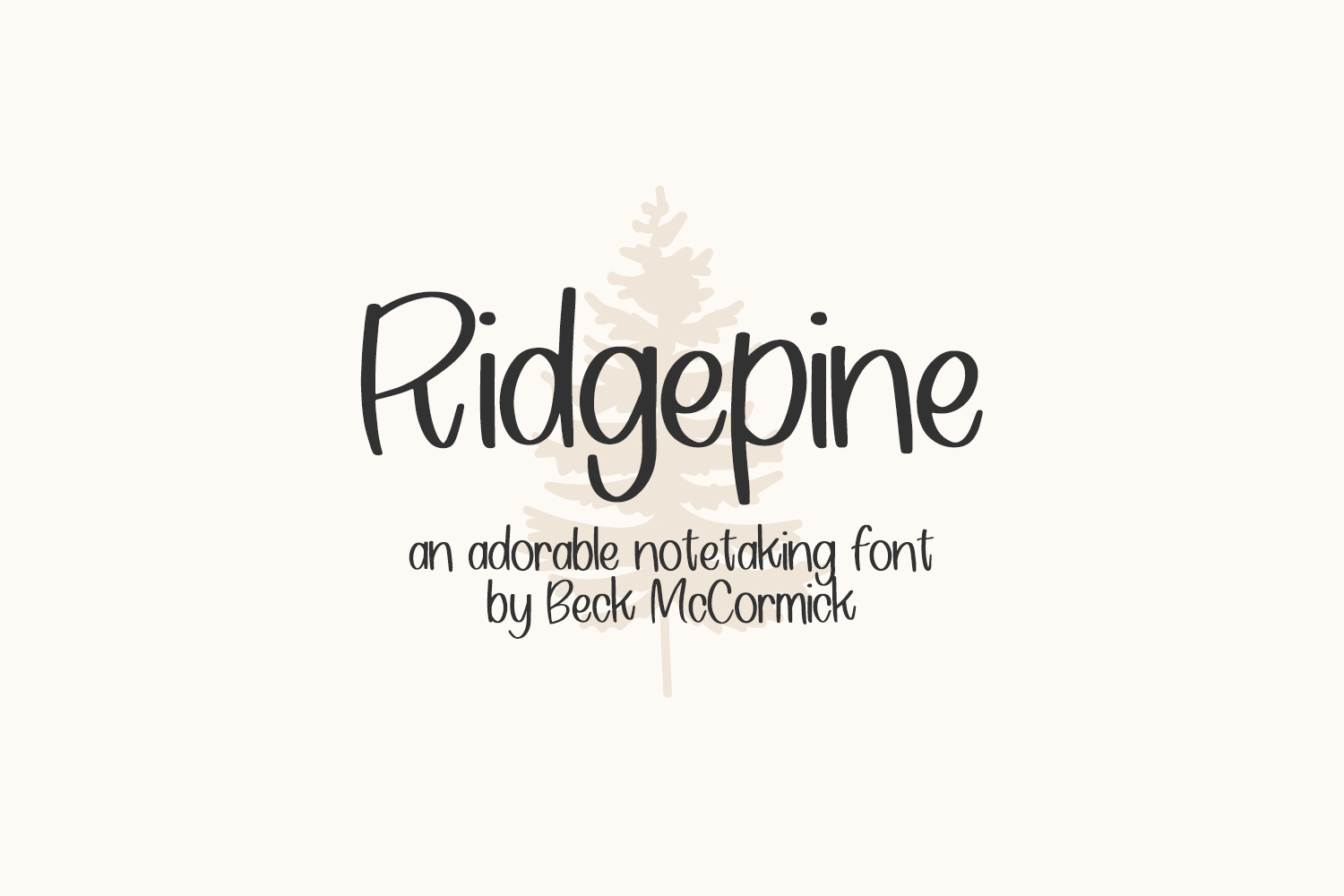
Ridgepine Sans
Ridgepine Sans is a neat & tidy hand lettered font. It’s the perfect fit for your digital planner or note-taking app, and is super legible. Ridgepine will be a great fit for your cute home decor projects, your Cricut or Silhouette machine, or logo & branding projects, as well as social media or marketing graphics.
Extensive Language Support:
Western European, Central European, South Eastern European, South American, Oceanian, Vietnamese, Esperanto